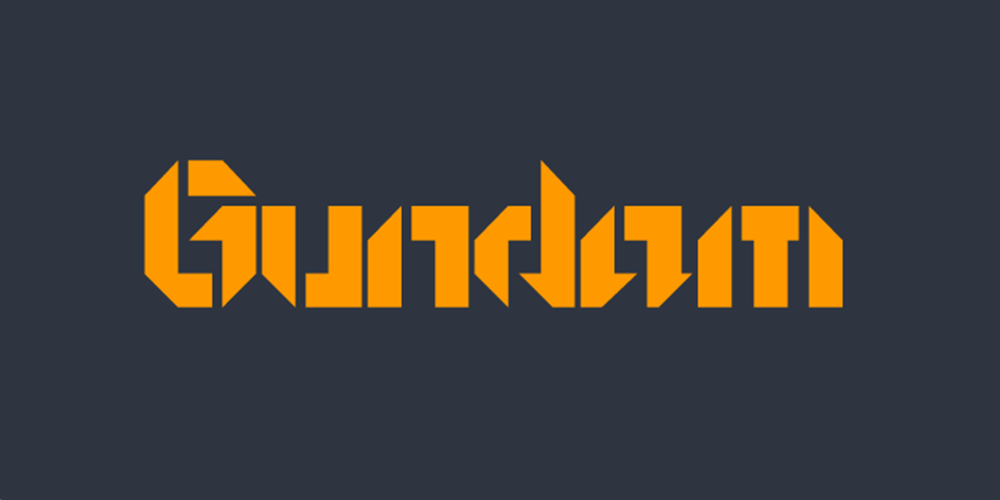
GetaRobo
GetaRobo font
GetaRobo Font Family was designed by Jonathan Hill and published by The Northern Block. GetaRobo contains 10 styles and family package options. A mechanical typeface influenced by Japanese animation (Anime). Examples Include: Getter Robo and Gatchaman aka (Battle of the Planets).